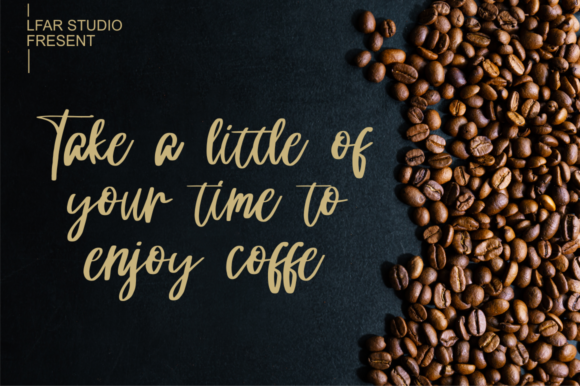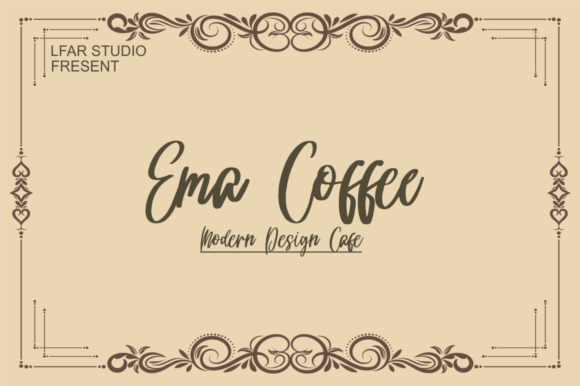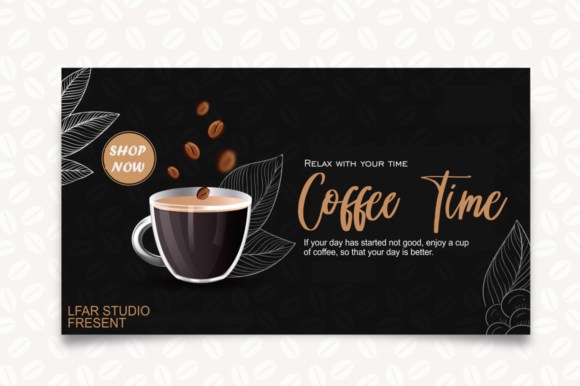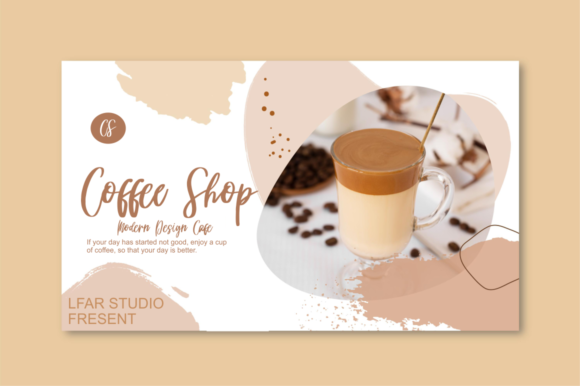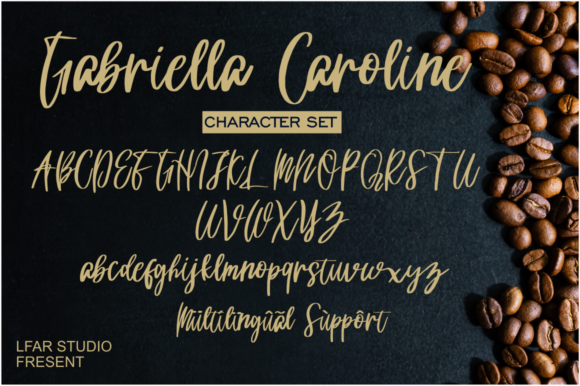
Introducing Gabriella Caroline Font: Elevate Your Designs with Elegance
Are you looking for a font that exudes luxury and sophistication? Look no further than Gabriella Caroline Font, an elegant handwritten font that features a lovely brush. This stunning font is perfect for designers and crafters who want to add a touch of high-end style to their projects. In this article, we’ll dive into the world of Gabriella Caroline Font and explore its features, benefits, and uses.
What is Gabriella Caroline Font?
Gabriella Caroline Font is a beautiful, handwritten font that boasts a unique and elegant brush style. Its flowing lines and curves create a sense of movement and fluidity, making it perfect for designs that require a touch of sophistication. This font is ideal for a wide range of projects, from branding and advertising to packaging and stationery.
Key Features of Gabriella Caroline Font
- Elegant Handwritten Style: Gabriella Caroline Font features a gorgeous, handwritten style that adds a personal touch to any design.
- Lovely Brush Texture: The font’s brush texture gives it a unique, organic feel that’s perfect for designs that require a touch of luxury.
- Highly Versatile: Gabriella Caroline Font can be used for a wide range of projects, from digital designs to print materials.
- Easily Readable: Despite its elegant style, Gabriella Caroline Font is highly readable, making it perfect for body text and headings.
Benefits of Using Gabriella Caroline Font
So, why should you choose Gabriella Caroline Font for your next design project? Here are just a few benefits of using this stunning font:
- Adds Luxury and Sophistication: Gabriella Caroline Font instantly elevates your designs, adding a touch of luxury and sophistication.
- Stand Out from the Crowd: With its unique and elegant style, Gabriella Caroline Font helps your designs stand out from the crowd.
- Perfect for Branding and Advertising: This font is ideal for branding and advertising projects, where you want to make a lasting impression.
Uses of Gabriella Caroline Font
Gabriella Caroline Font is incredibly versatile, making it perfect for a wide range of design projects. Here are just a few ideas to get you started:
- Branding and Logo Design: Use Gabriella Caroline Font to create stunning logos and branding materials that exude luxury and sophistication.
- Advertising and Marketing: This font is perfect for advertising and marketing materials, such as brochures, flyers, and social media graphics.
- Packaging Design: Add a touch of elegance to your packaging designs with Gabriella Caroline Font.
- Stationery and Invitations: Use this font to create beautiful stationery, invitations, and greeting cards.
Tips for Using Gabriella Caroline Font
To get the most out of Gabriella Caroline Font, here are a few tips to keep in mind:
- Use it Sparingly: While Gabriella Caroline Font is stunning, it’s best used sparingly to avoid overwhelming your design.
- Pair it with Other Fonts: Experiment with pairing Gabriella Caroline Font with other fonts to create a unique and visually appealing design.
- Adjust the Size and Color: Play around with different sizes and colors to find the perfect combination for your design.
In conclusion, Gabriella Caroline Font is an elegant and sophisticated font that’s perfect for designers and crafters who want to add a touch of luxury to their projects. With its lovely brush texture and highly versatile style, this font is ideal for a wide range of design projects. Whether you’re working on branding and advertising materials, packaging design, or stationery and invitations, Gabriella Caroline Font is sure to elevate your designs and make them stand out from the crowd.